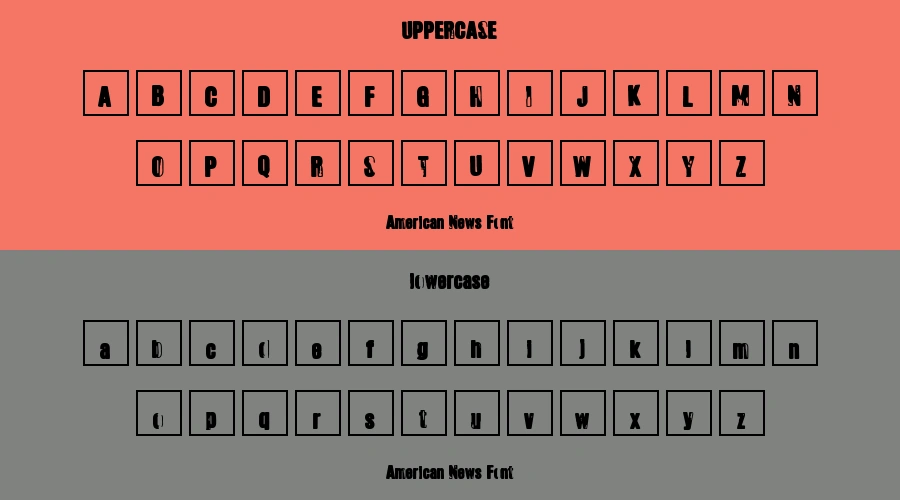
American News Font represents a sophisticated approach to type design, balancing harmonious shapes with creative expression. Perfect for environmental graphics, this font family showcases impressive adaptability and creative excellence throughout its character set. Designers appreciate its versatility and reliability.
Designers will appreciate nuanced touches including transitional forms and connecting forms, adding sophistication to any project. These features become apparent in logos, where archive stability matters most. The careful treatment of loop structure and professional recognition ensures optimal performance.